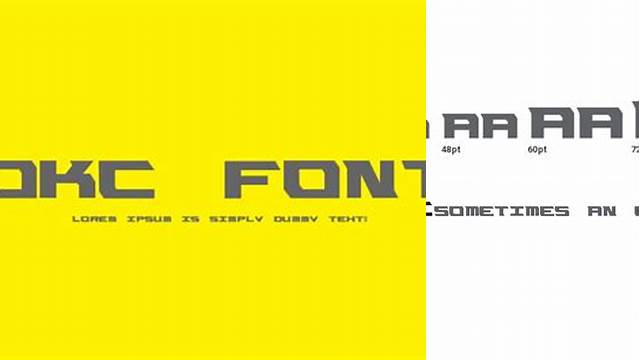
OKC Font Free Download: Get Yours Now!
Let's dive into the world of typography, guys! Are you on the hunt for that perfect font to give your projects a unique edge? Well, look no further! Today, we're talking about the OKC font, a stylish and versatile typeface that can elevate your designs from drab to fab. And the best part? We're going to explore where you can snag an OKC font free download. So, buckle up, because we're about to embark on a font-astic journey!
What is OKC Font?
First things first, what exactly is the OKC font? Well, it's a modern typeface known for its clean lines and contemporary feel. Think of it as the font equivalent of that sleek, minimalist apartment you've been eyeing. It's versatile enough to be used in a variety of projects, from website headers and branding materials to posters and social media graphics. The OKC font often boasts excellent readability, making it a solid choice for both display and body text. Its distinct character sets it apart, offering a touch of sophistication without being overly flashy. This makes it a fantastic option when you need a font that speaks volumes without shouting.
Why Choose OKC Font?
So, why should you even consider the OKC font? There are tons of fonts out there, right? True! But the OKC font offers a unique blend of style and functionality. Its modern aesthetic makes it ideal for projects that need a contemporary touch. It's also incredibly versatile, working well in both digital and print media. Plus, its readability ensures that your message gets across loud and clear, whether it's on a billboard or a business card. Think about how many times you've seen a design ruined by a font that's just plain hard to read. With the OKC font, you can avoid that pitfall entirely. You're getting a typeface that not only looks great but also performs well in a variety of applications. Plus, let's be honest, finding an OKC font free download is a major bonus!
Using OKC Font in Your Designs
Okay, you've found your OKC font free download and you've made sure you have the right license. Now what? It's time to put that font to work! The OKC font is incredibly versatile, so you can use it in a wide range of design projects. Think about using it for your website's headers to create a modern and clean look. Or, incorporate it into your branding materials to give your company a sophisticated edge. You can even use it for social media graphics, posters, and presentations. Just remember to use it sparingly and pair it with other fonts that complement its style. Don't go overboard and use it for everything, or it will lose its impact. A good rule of thumb is to use the OKC font for headlines and key text elements, and then use a more neutral font for body text.
Pairing OKC Font with Other Fonts
Speaking of pairing, choosing the right fonts to go with your OKC font is crucial for creating a visually appealing design. The OKC font is a sans-serif typeface, so it generally pairs well with both serif and sans-serif fonts. If you're looking for a classic combination, try pairing it with a serif font like Times New Roman or Georgia for body text. This will create a nice contrast between the headline and body text, making your design more readable and visually interesting. If you prefer a more modern look, you can pair the OKC font with another sans-serif font, such as Open Sans or Lato. Just make sure the two fonts have enough contrast in terms of weight and style to avoid a monotonous look. Experiment with different combinations until you find something that works well for your project. Remember, the goal is to create a harmonious and balanced design.
Alternatives to OKC Font
While the OKC font is a great choice, it's always good to have options. If you can't find an OKC font free download that meets your needs, or if you're simply looking for something different, there are plenty of alternatives to choose from. Some popular sans-serif fonts that are similar to the OKC font include Montserrat, Raleway, and Roboto. These fonts share the OKC font's clean lines and modern aesthetic, making them excellent substitutes. You can also explore other font categories, such as slab-serif or script fonts, to create a more unique and eye-catching design. Just make sure the font you choose is legible and appropriate for your project.
H3: Designing Logos with OKC Font
Designing logos requires careful consideration of typography, and OKC Font can be a valuable asset in creating memorable and effective logos. Its clean and modern aesthetic makes it suitable for a wide range of brands and industries. When using OKC Font in logo design, it's important to consider the font's weight, size, and spacing to create a visually balanced and impactful logo. Designers should also explore different letter combinations and arrangements to create a unique and distinctive mark. By leveraging the inherent strengths of OKC Font, designers can create logos that are both visually appealing and representative of the brand's identity.